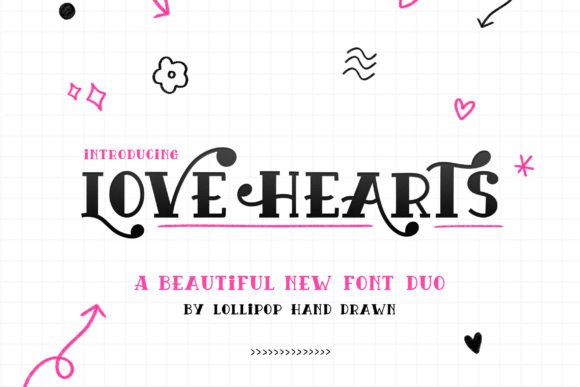
Introducing Love Hearts Font, the ultimate choice for anyone seeking the perfect touch of love and whimsy in their designs. Created by the talented Lollipop Hand Drawn, this adorable display font will captivate your heart and breathe life into your creative projects.
Love Hearts Font is more than just a font – it's an enchanting experience. With its charming curves and playful strokes, it effortlessly adds a touch of magic to any design. Whether you're working on a wedding invitation, a heartfelt greeting card, or a romantic poster, Love Hearts Font will infuse your creations with a tender and delightful vibe.
Unleash your imagination and let Love Hearts Font be your creative companion. Its versatile nature allows it to adapt to various design styles, making it perfect for both digital and print projects. Whether you're designing a website, crafting a logo, or even creating a personalized gift, this font will elevate your ideas and make them truly unforgettable.
With Love Hearts Font, expressing love, joy, and happiness has never been easier. Its hand-drawn aesthetic brings a sense of warmth and authenticity to your designs, making them stand out from the crowd. Each letter is meticulously crafted to evoke feelings of tenderness and playfulness, ensuring that your message resonates with your audience on a deeper level.
But Love Hearts Font isn't just about aesthetics; it's also about practicality. With its extensive character set and multiple ligatures, this font offers endless possibilities for customization. Whether you want to add a swirl, a heart, or a decorative element, Love Hearts Font has got you covered. It's like having a treasure trove of design elements at your fingertips, waiting to transform your ideas into visual masterpieces.